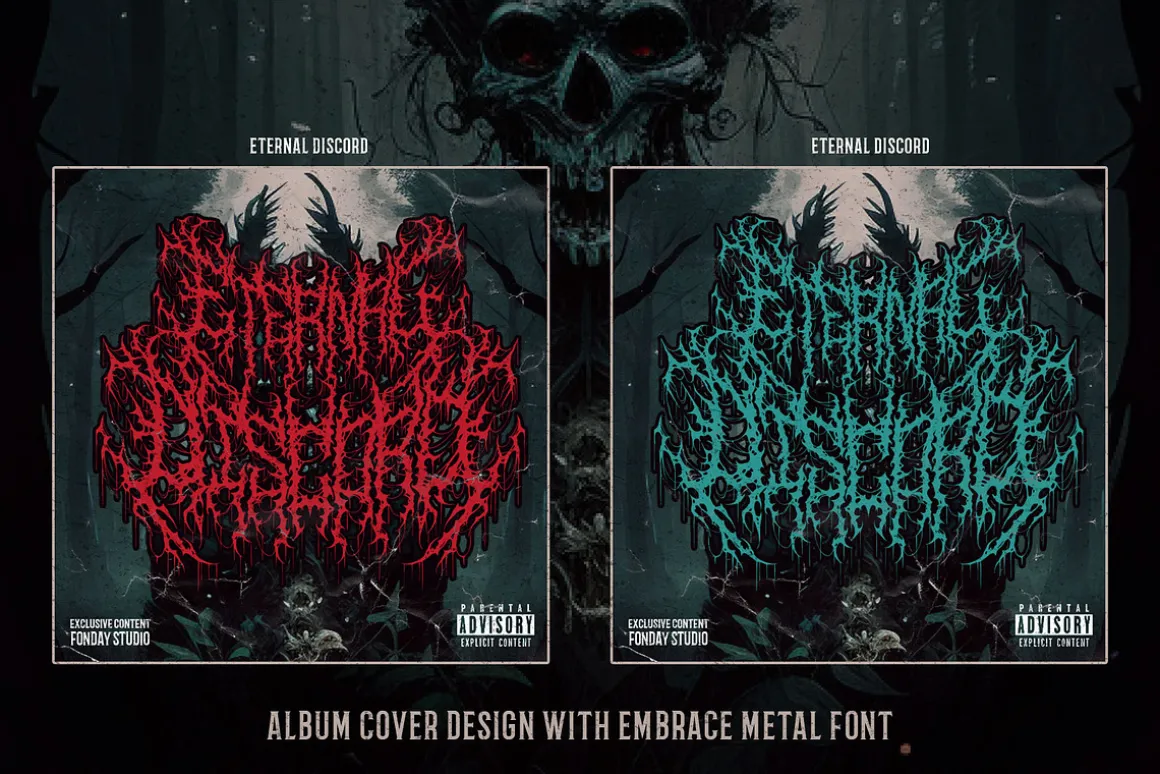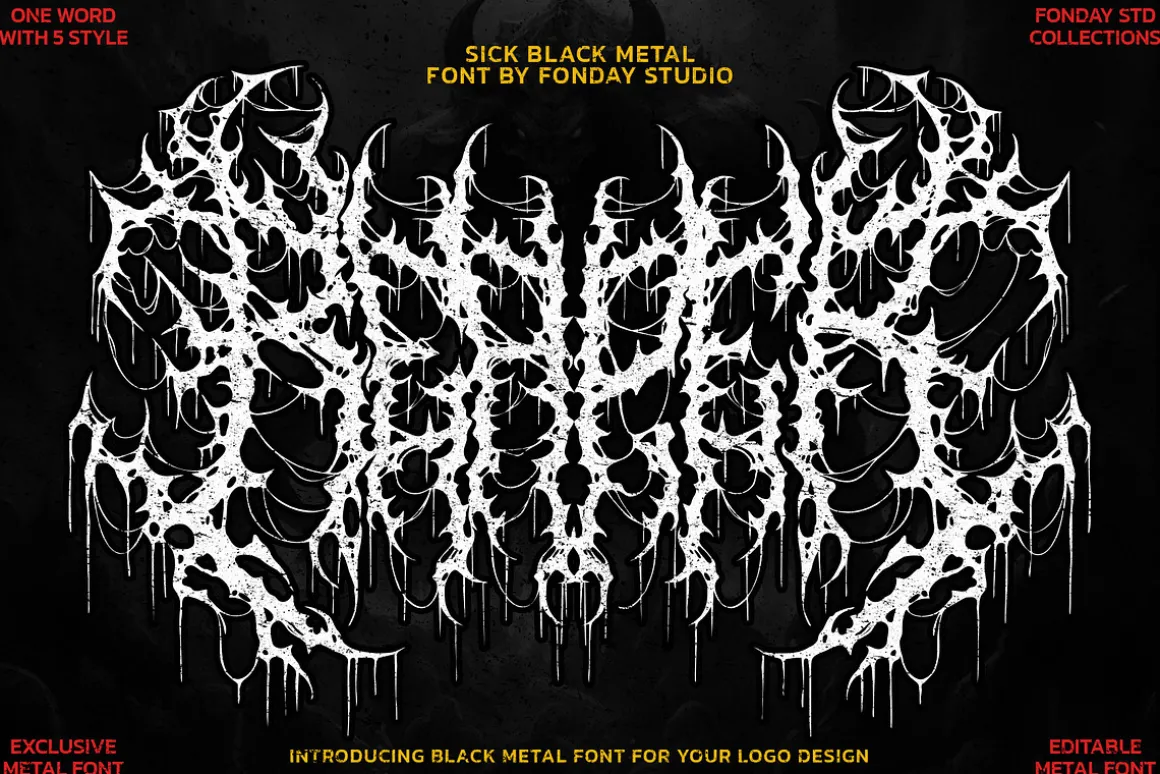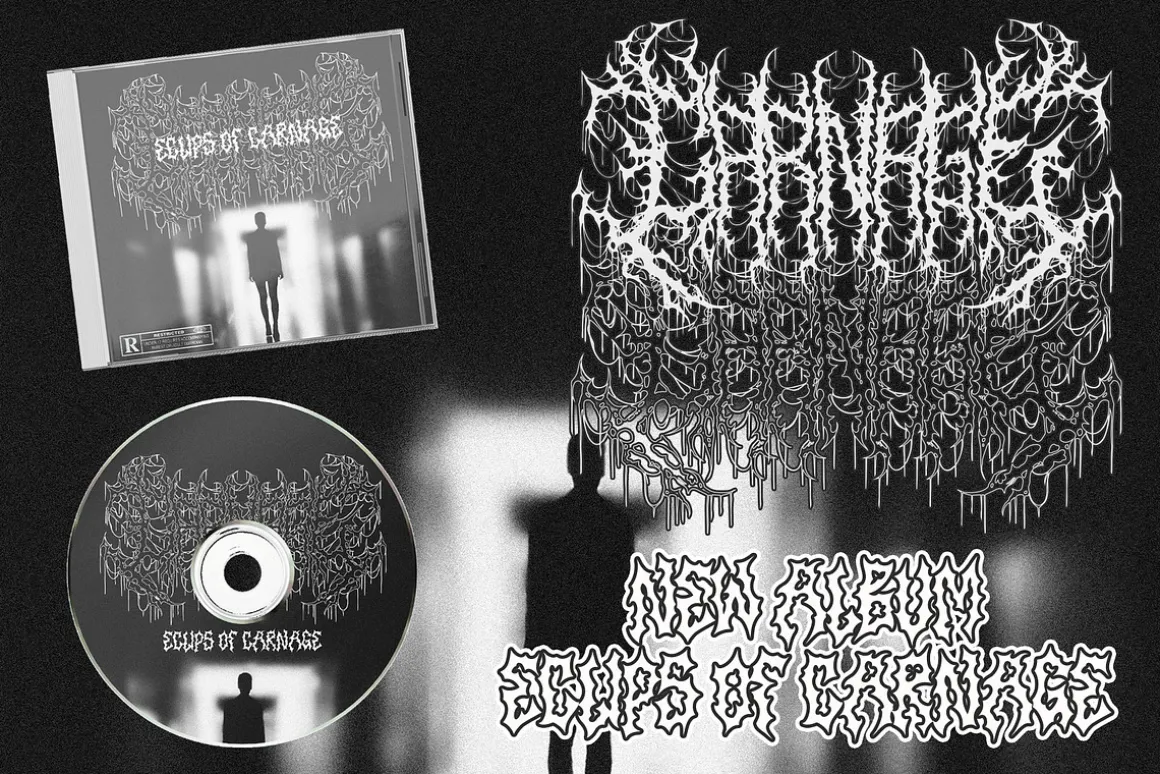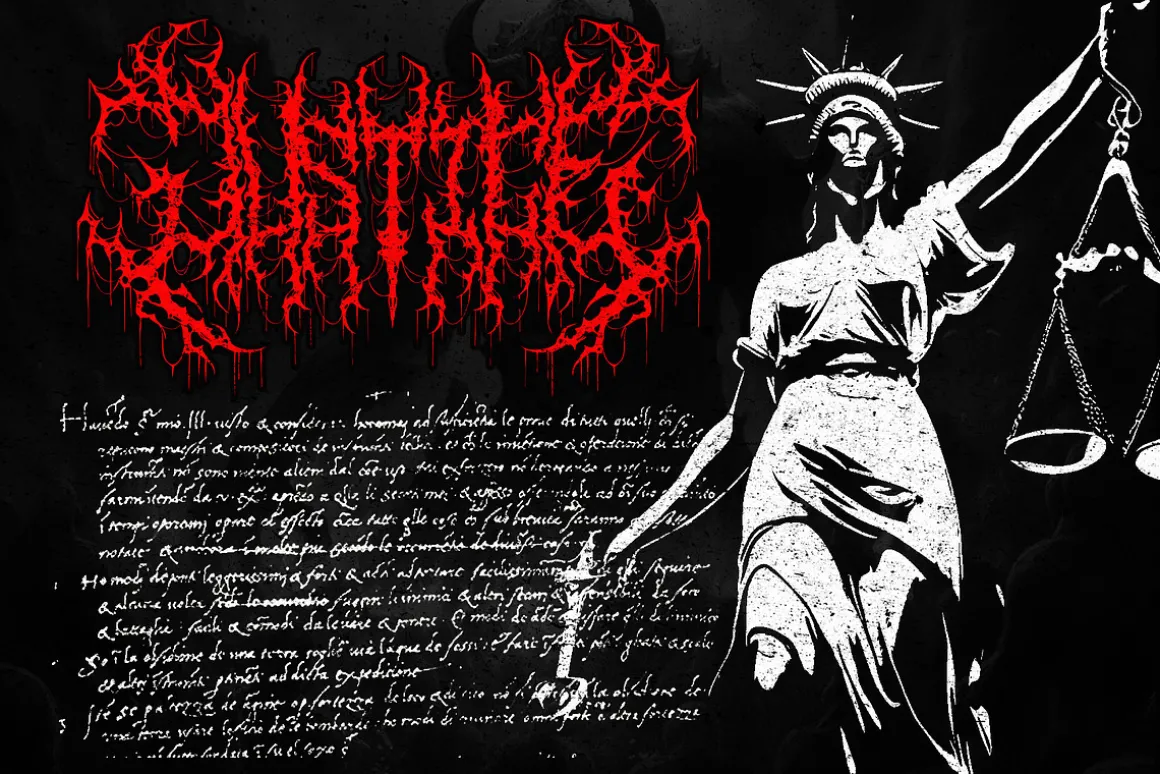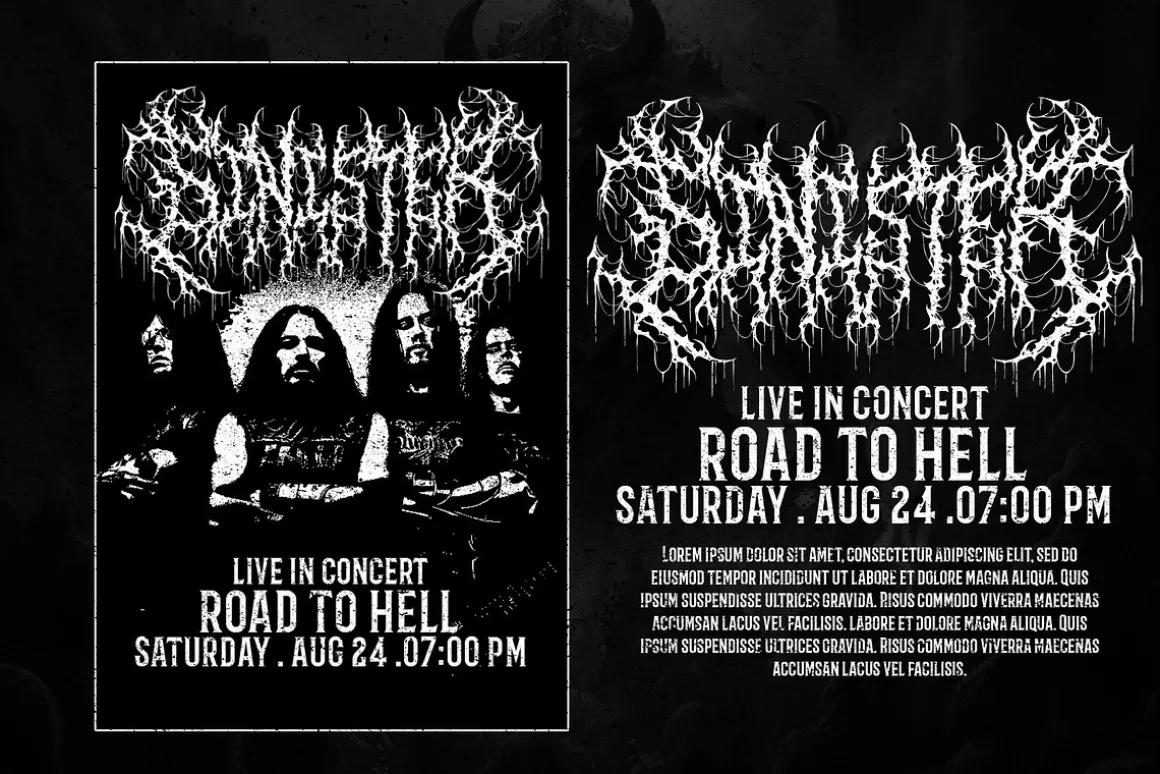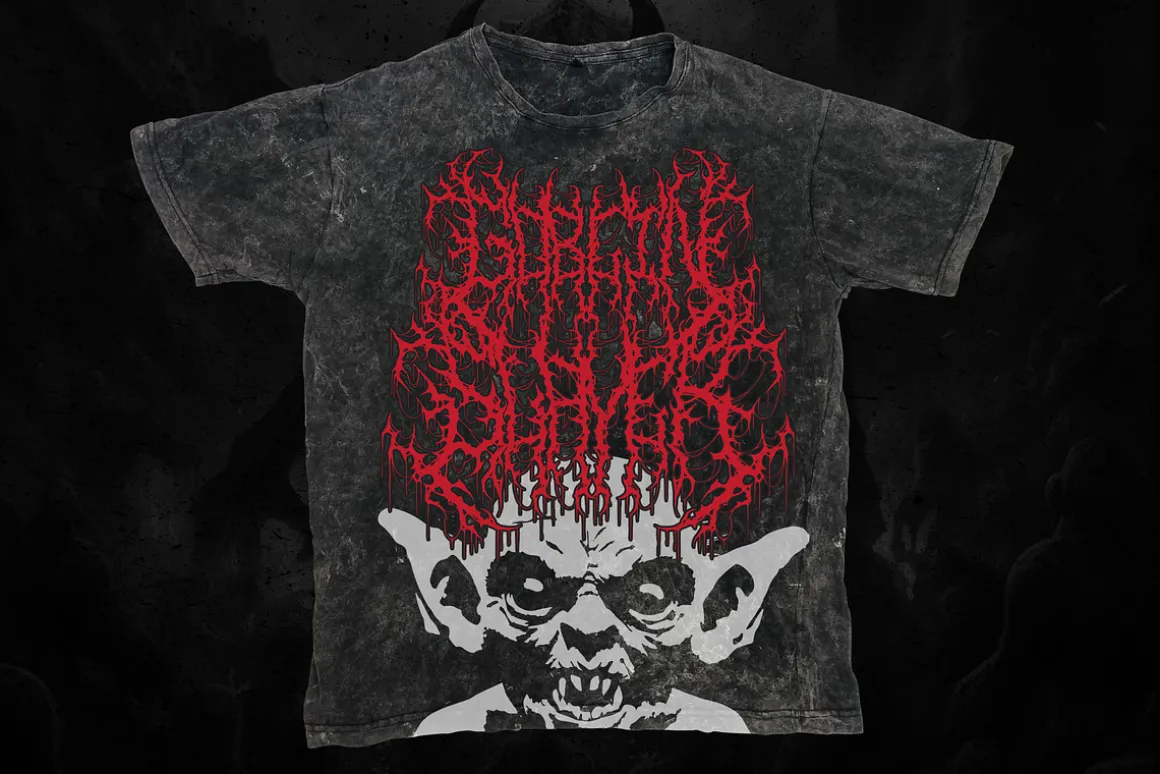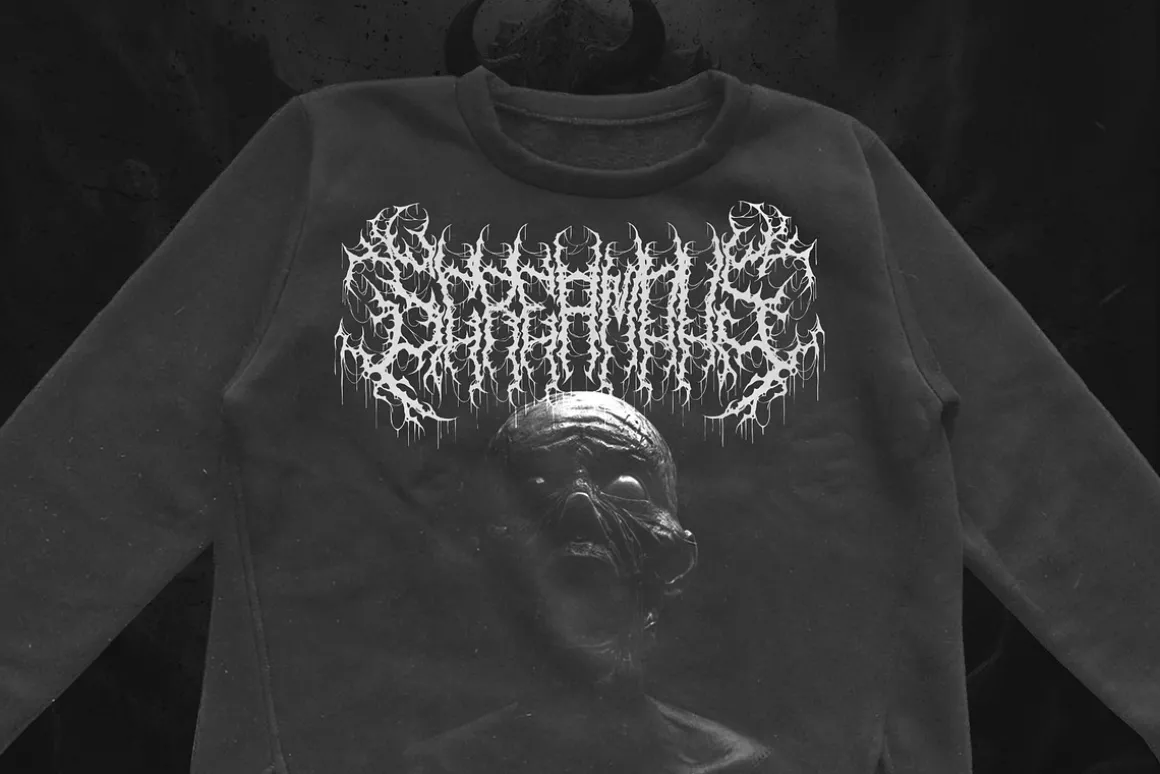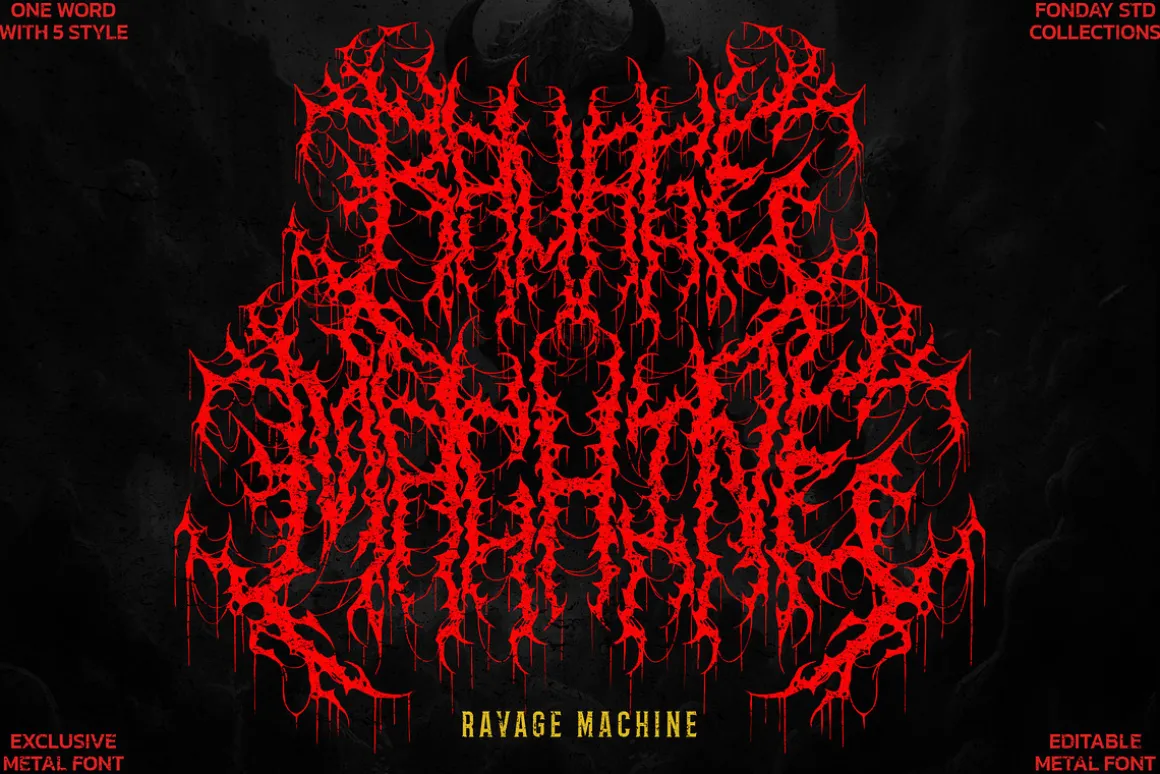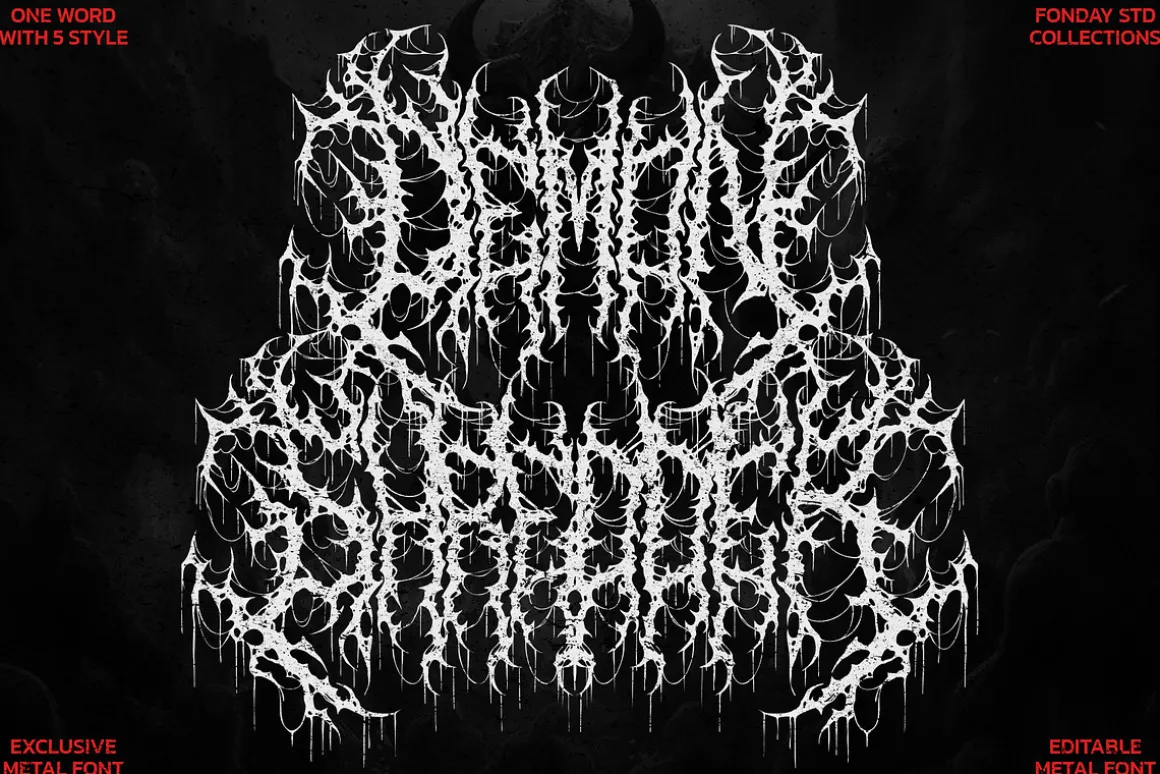
🤘 Introducing Embrace Death Metal Font: Unleash Your Inner Metalhead in Every Design! 🤘
Looking for a font that truly rocks? Dive into the darkness with our exclusive “Embrace Death Metal Font.” This meticulously crafted font is your gateway to the world of metal band aesthetics and more.
- All Caps Character
- Alternate
- Stylistic Alternate
- Swash
🔥 High-Quality and Detailed: Our font is a masterpiece of design, featuring intricate detailing and exceptional quality, ensuring your designs will stand out with precision.
🤘 Packed with Alternates: Embrace Death Metal Font offers a treasure trove of alternate characters, giving you unparalleled creative freedom. Mix and match to create the perfect metal-themed masterpiece.
🖤 Versatile for All Metal Themes: Whether it’s death metal, black metal, thrash metal, or any other subgenre, this font is your ultimate companion. It seamlessly fits into any metal theme design. Whether you’re designing album covers, band logos, or merchandise
✏️ Effortless Editing: No need to be a design virtuoso. Embrace Death Metal Font is incredibly user-friendly, making modifications a breeze. Craft your vision with ease.
🎸 Join the Metal Revolution: Stand out in the metal design world with the font that screams rebellion, power, and raw energy. Embrace Death Metal Font is your ticket to a world of endless possibilities.